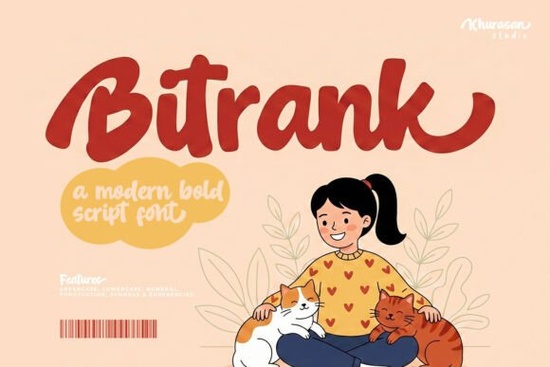
Bitrank Font is a unique script handwriting font that brings the warmth and authenticity of real hand-lettering to digital design. If you're looking for a typeface that feels personal and expressive, Bitrank offers a natural brush effect that makes every stroke look alive. Whether you're working on logos, social media posts, or creative projects, this font adds a stylish and premium touch that stands out.
Designed with attention to detail, Bitrank combines flowing connections with dynamic brush textures to create a sense of movement and emotion. Its smooth, expressive lines make it ideal for a variety of applications, from branding to product packaging. The font’s personality shines through in every character, giving your designs a human and memorable feel.
If you're a designer, craftsperson, or small business owner, Bitrank can help elevate your work without the need for complex design tools. It’s especially useful for those who want to add a handwritten aesthetic to their projects while maintaining professionalism. The font’s versatility makes it a great choice for both digital and print formats.
Why Choose Bitrank Font?
One of the main reasons designers choose Bitrank is its ability to mimic the look of real hand-lettering. Unlike many digital fonts that feel stiff or artificial, Bitrank captures the subtle imperfections and fluidity of a real brush. This gives your text a more organic and authentic appearance.
Another advantage is its ease of use. You don’t need to be an expert to incorporate Bitrank into your designs. It works well with most design software, and its clean structure ensures readability even at smaller sizes. Whether you’re creating a logo or adding a quote to a social media post, Bitrank adapts seamlessly to different contexts.
Best Uses for Bitrank Font
Bitrank is perfect for a wide range of creative projects. For example, it works well for wedding invitations, where a personal and elegant touch is essential. It also shines in product packaging, helping brands stand out with a unique and artistic flair. Social media posts benefit from its expressive style, making content more engaging and visually appealing.
Small businesses and print-on-demand sellers often use Bitrank for branding materials. Its warm, stylish look helps create a strong visual identity that resonates with customers. Whether you're designing t-shirts, mugs, or posters, Bitrank adds a level of craftsmanship that sets your work apart.
How Bitrank Stands Out
Compared to other script fonts, Bitrank has a distinct character that feels more like a genuine brushstroke than a digital reproduction. This makes it ideal for projects that require a personal touch. Its flowing connections and natural texture give it a dynamic quality that other fonts may lack.
When working with Bitrank, keep in mind that it works best in larger sizes where its details can shine. However, it still maintains clarity at smaller sizes, making it suitable for headings, captions, and other text elements. Experimenting with different colors and backgrounds can also help highlight its unique characteristics.
Whether you're a seasoned designer or just starting out, Bitrank offers a powerful way to add personality and style to your work. Its natural brush effect and expressive design make it a valuable tool for anyone looking to create something truly special.
Before finalizing your project, take a moment to review how Bitrank looks in different contexts. Test it on various backgrounds and sizes to ensure it meets your needs. With its versatility and charm, Bitrank is sure to become a go-to font for many of your creative endeavors.